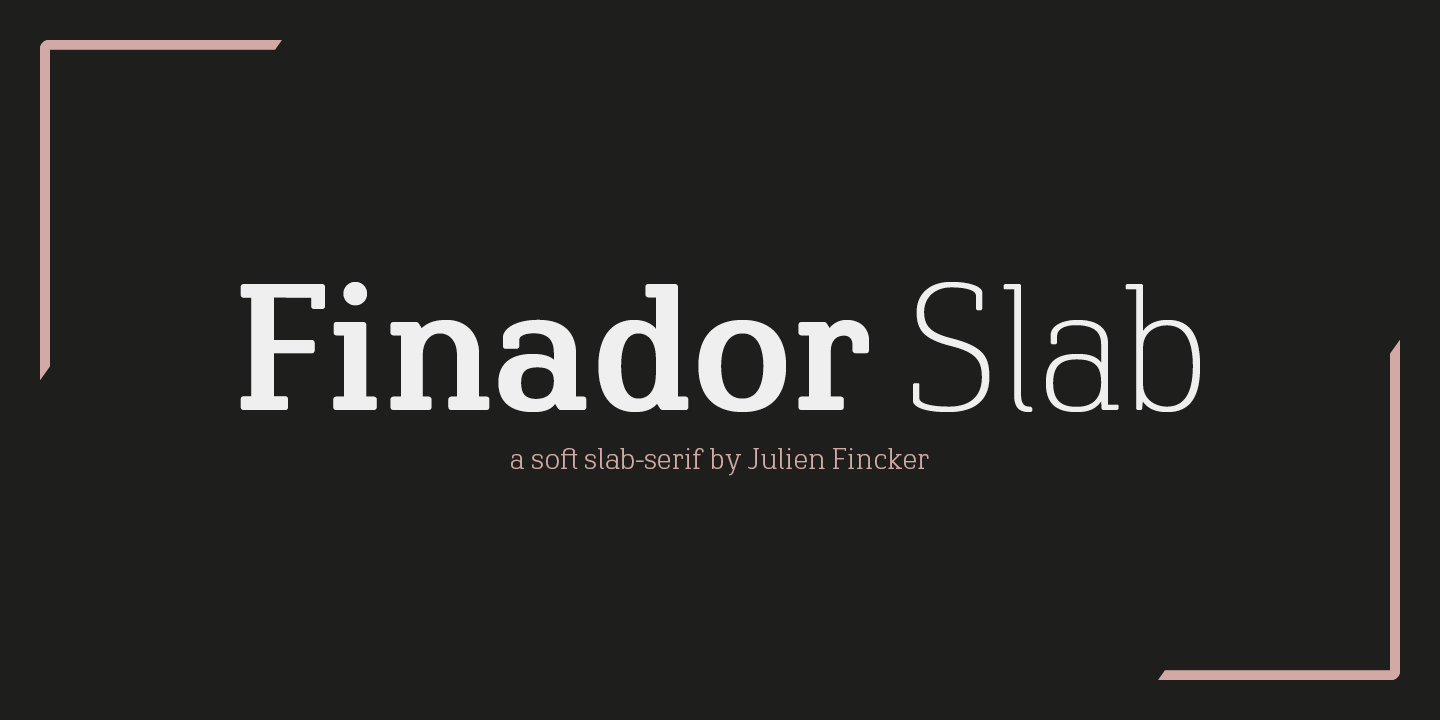
Finador Slab Font Free Download is a robust, modern slab serif typeface that blends strong geometric structure with timeless elegance. Featuring bold serifs, clean lines, and excellent readability, Finador Slab Font is perfect for branding, logos, editorial layouts, packaging, posters, and website design. Its sturdy and professional appearance makes it an ideal choice for projects that need both authority and style.
Whether you're creating bold headlines, sophisticated branding, or clean editorial spreads, Finador Slab Font delivers clarity, strength, and elegance. Its balanced design makes it adaptable across both print and digital media, ensuring your message stands out with confidence.